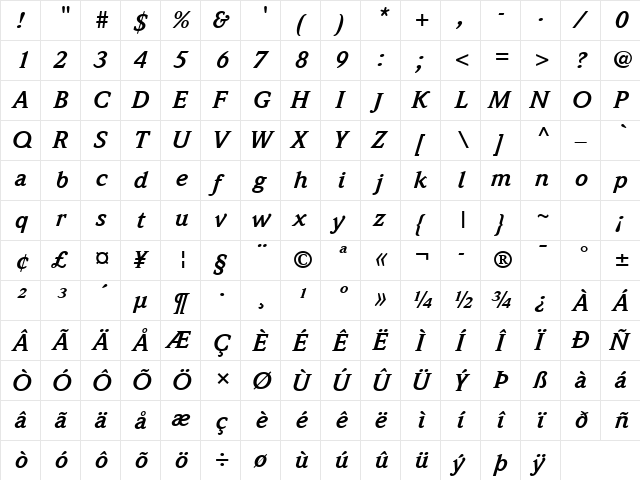
ITC Weidemann Com Bold Italic
Bold Italic · Linotype GmbH Kurt Weidemann ·
DesignerKurt Weidemann
Design Context for ITC Weidemann Com Typeface
ITC Weidemann Com is a composed and adaptable typeface that performs quietly and consistently across a wide range of design contexts. The slanted form adds forward momentum and visual energy. Its bold stroke weight gives it real presence on the page.